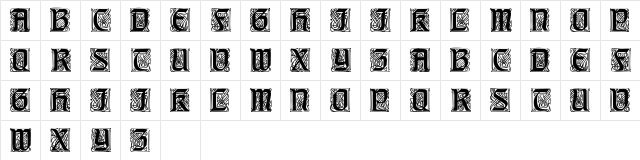
AmedicusCapsSSK Regular Font Preview
AmedicusCapsSSK Regular
Design Context for AmedicusCapsSSK Typeface
AmedicusCapsSSK is a composed and adaptable typeface that performs quietly and consistently across a wide range of design contexts.